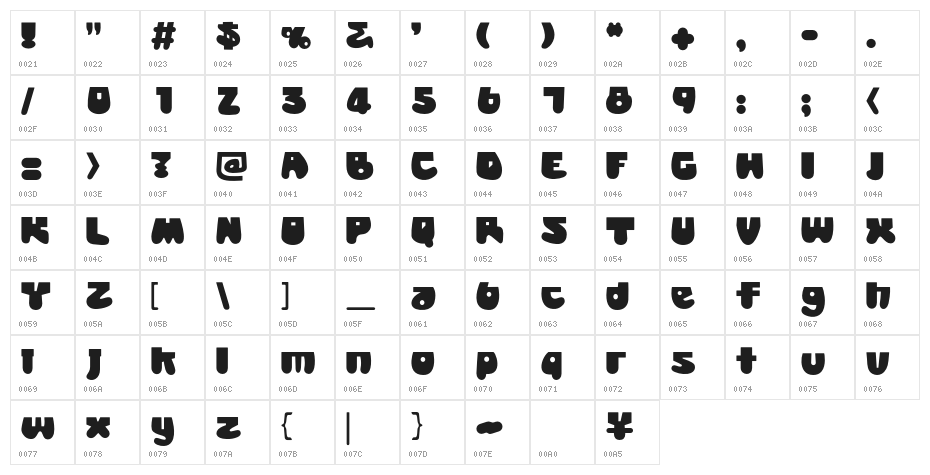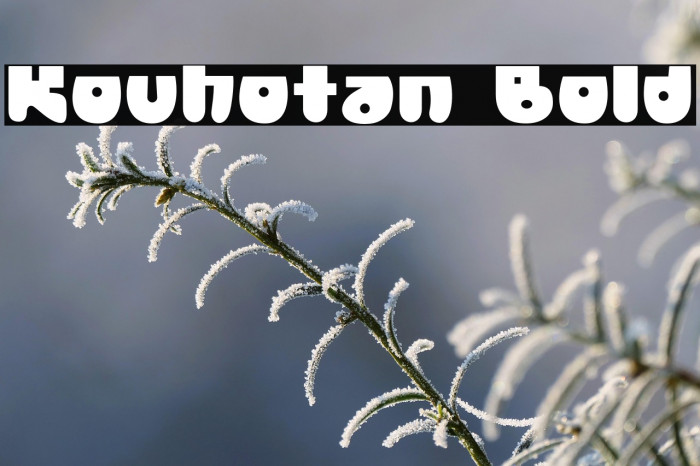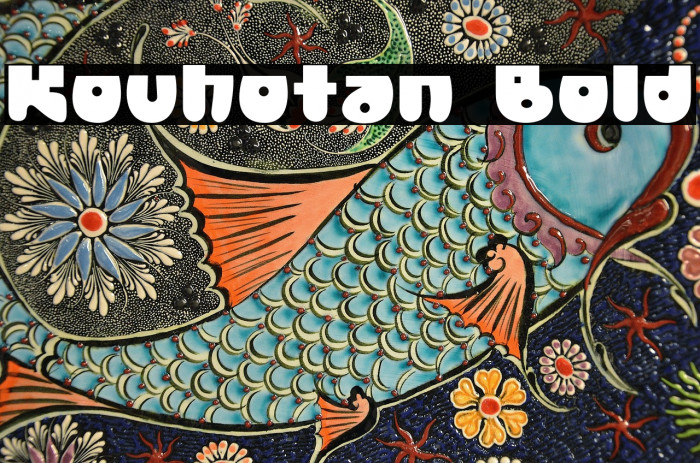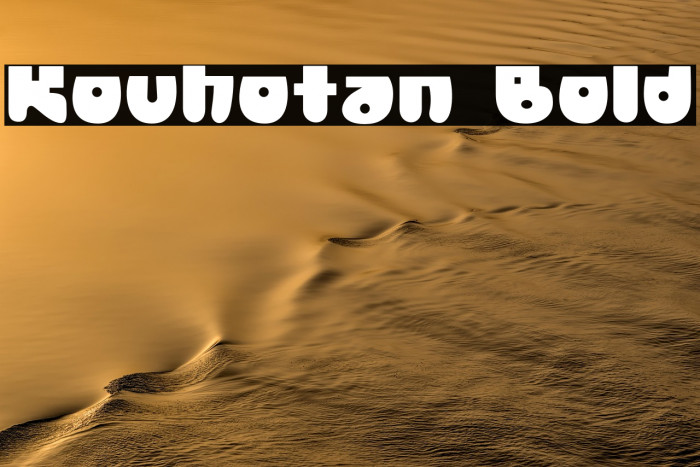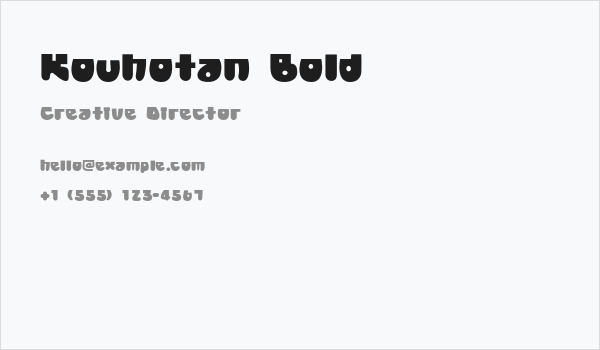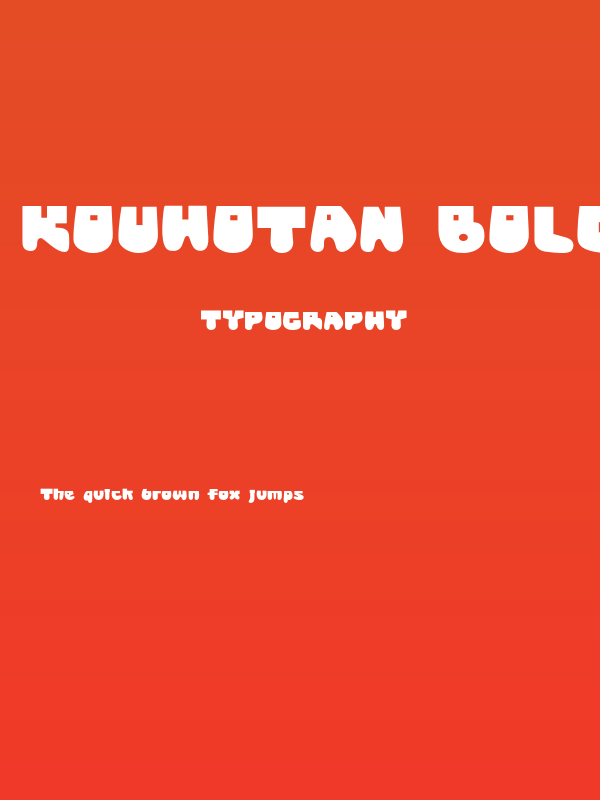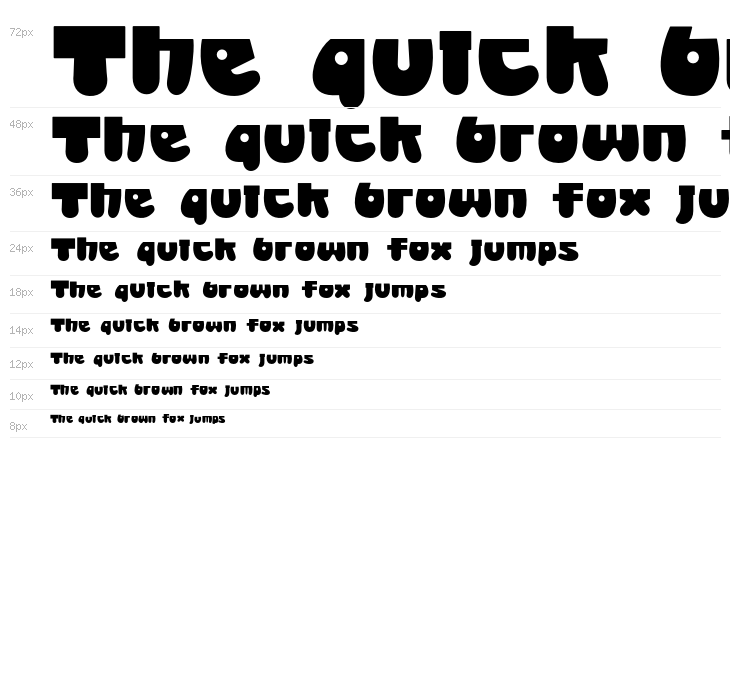
Kouhotan Bold Font
Kouhotan Bold Description
This font features a bold and playful design with rounded, bulbous characters that convey a sense of fun and creativity. The letters are thick and substantial, with a distinctively quirky style that makes them stand out. The uppercase and lowercase letters maintain a consistent weight, contributing to a cohesive and harmonious appearance. The numbers and special characters follow the same playful aesthetic, ensuring uniformity across all text elements. This font's unique style is ideal for projects that require a touch of whimsy and boldness.
| Overall Style | Playful, Quirky |
| Proposed Projects | Ideal for children's books, playful branding, posters, and creative advertising campaigns. |